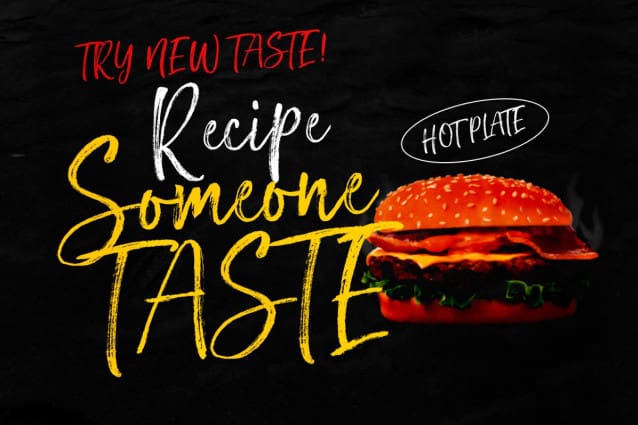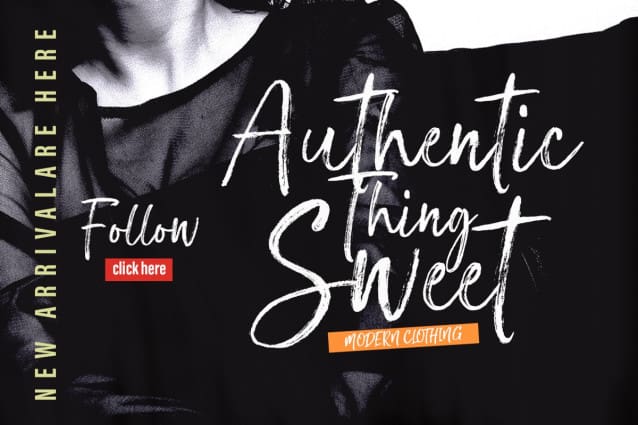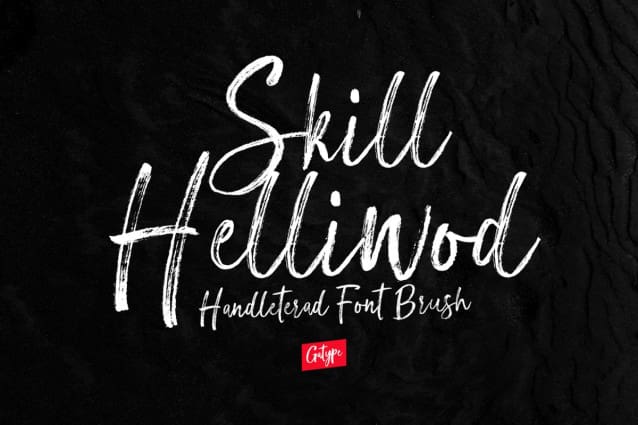
Skill Helliwod Font
Skill Helliwod with extreme Brush cuts, sharp angles and interactive straps. Affected characters are spread across three capital-only subfamilies, with distinct styles, and distinct personalities. The bold separation of characters and the considered standard of ligature create a type that is solid, modern and attractive.